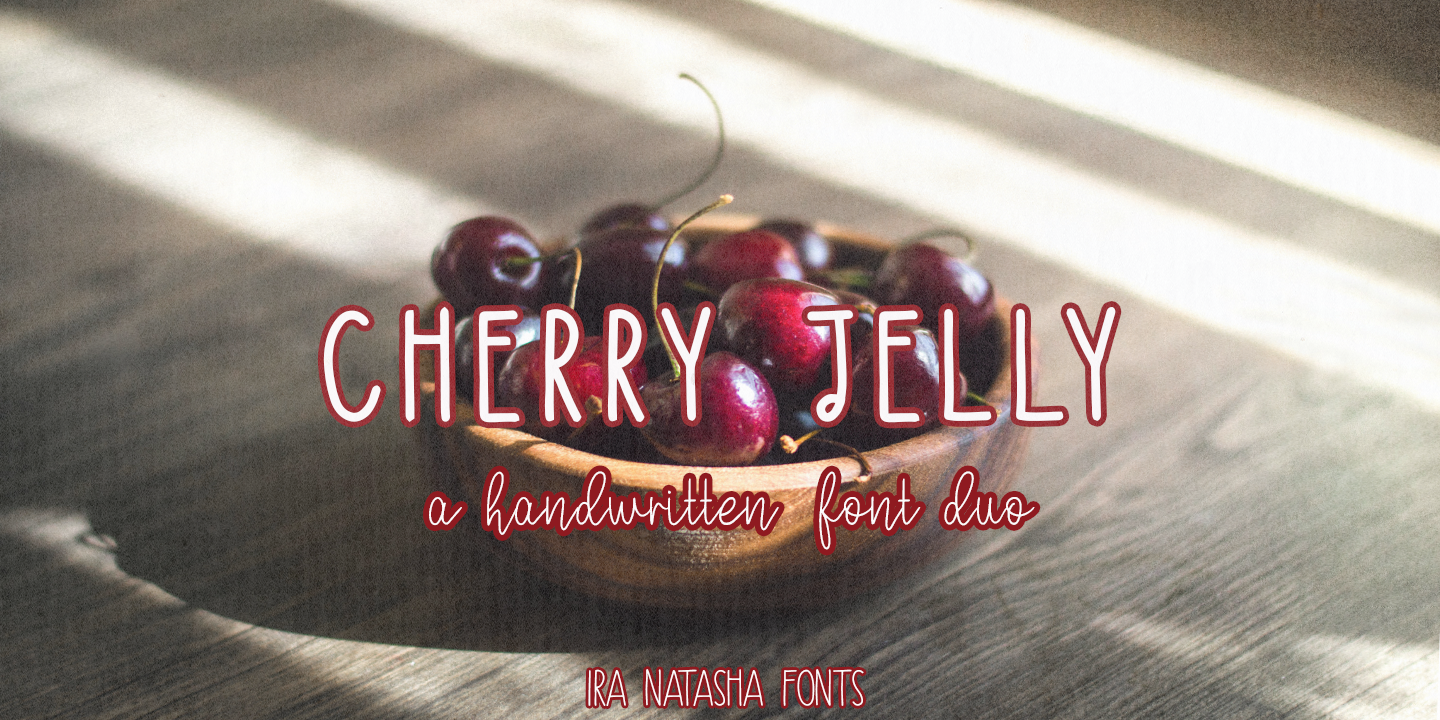
The Cherry Jelly Font is perfect for candy shop branding, sweet bakery signage, children's party invitations, ice cream parlor menus, kawaii-style merchandise, bubblegum fashion brands, colorful toy packaging, and playful confectionery marketing. This delightful typeface works exceptionally well in applications where sweetness and joyful energy need to be emphasized, making it ideal for brands that want to evoke happiness, fun, and irresistible charm through vibrant, candy-inspired visual identity.
What makes Cherry Jelly Font exciting is its irresistibly sweet character and bouncy playfulness that captures the essence of childhood joy and sugary delights. The font's soft curves and bubbly letterforms create an atmosphere of pure happiness and innocent fun, making it perfect for brands that want to bring smiles and create positive emotional connections with their audience. Its cheerful presence ensures that every application feels like a celebration of sweetness and joy.
The Cherry Jelly Font family typically includes regular, bold, and extra-bouncy weights, often featuring candy-inspired alternates, sweet decorative elements, and playful symbols that enhance its confectionery appeal. Many versions include fruit motifs, jelly-like textures, and specialized characters that provide designers with comprehensive tools for creating authentic sweet-themed design projects with genuine candy shop charm and delightful visual flavor.
For designers working on projects that require sweet authenticity and joyful credibility, Cherry Jelly Font Free Download delivers exceptional candy-coated appeal. Its ability to instantly communicate sweetness and playful energy makes it an invaluable choice for confectionery brands, children's products, and any project requiring typography that embodies the delicious joy of sweet treats, the innocent happiness of childhood, and the irresistible charm of candy-inspired design.